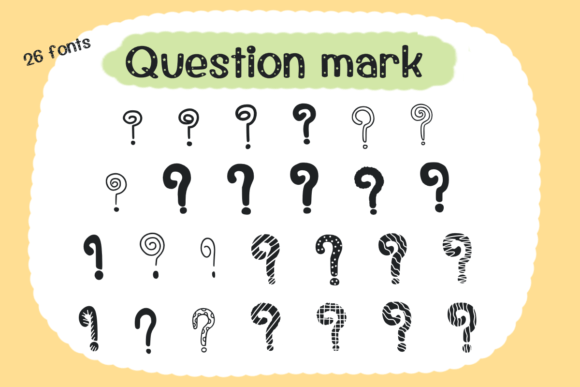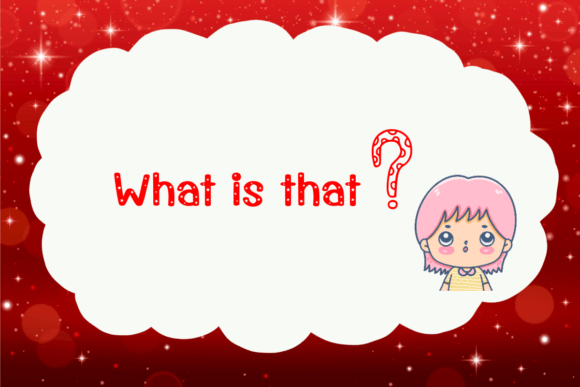
Question Mark Font
About Question Mark Font
Absolutely! Question Mark font is a fun and useful hand-drawn dingbats font that adds a unique touch to your designs. Made entirely of question marks, this font brings a playful and whimsical element to your creative projects.
With Question Mark font, you can infuse your designs with curiosity and intrigue. The unconventional use of question marks as the main design element creates a visually interesting and eye-catching effect. It’s a great choice for adding a sense of wonder and mystery to your designs.
This font can be used in a variety of ways to enhance your creative ideas. You can use it to create attention-grabbing headlines, titles, or captions that invite curiosity. It’s particularly useful for projects that involve puzzles, quizzes, riddles, or any content related to questioning or seeking answers.
Additionally, Question Mark font can be a fantastic tool for adding decorative elements or patterns to your designs. By arranging the question mark characters in different ways, you can create unique and artistic patterns, backgrounds, or borders that add visual interest to your artwork.
Whether you’re designing posters, social media graphics, greeting cards, or any other type of visual content, Question Mark font can be a fun and engaging addition. It’s perfect for projects that require a touch of whimsy or where you want to spark curiosity in your audience.
So go ahead and explore the creative possibilities with Question Mark font. Incorporate it into your designs and let it add a playful and intriguing element that will make your creations outstanding!